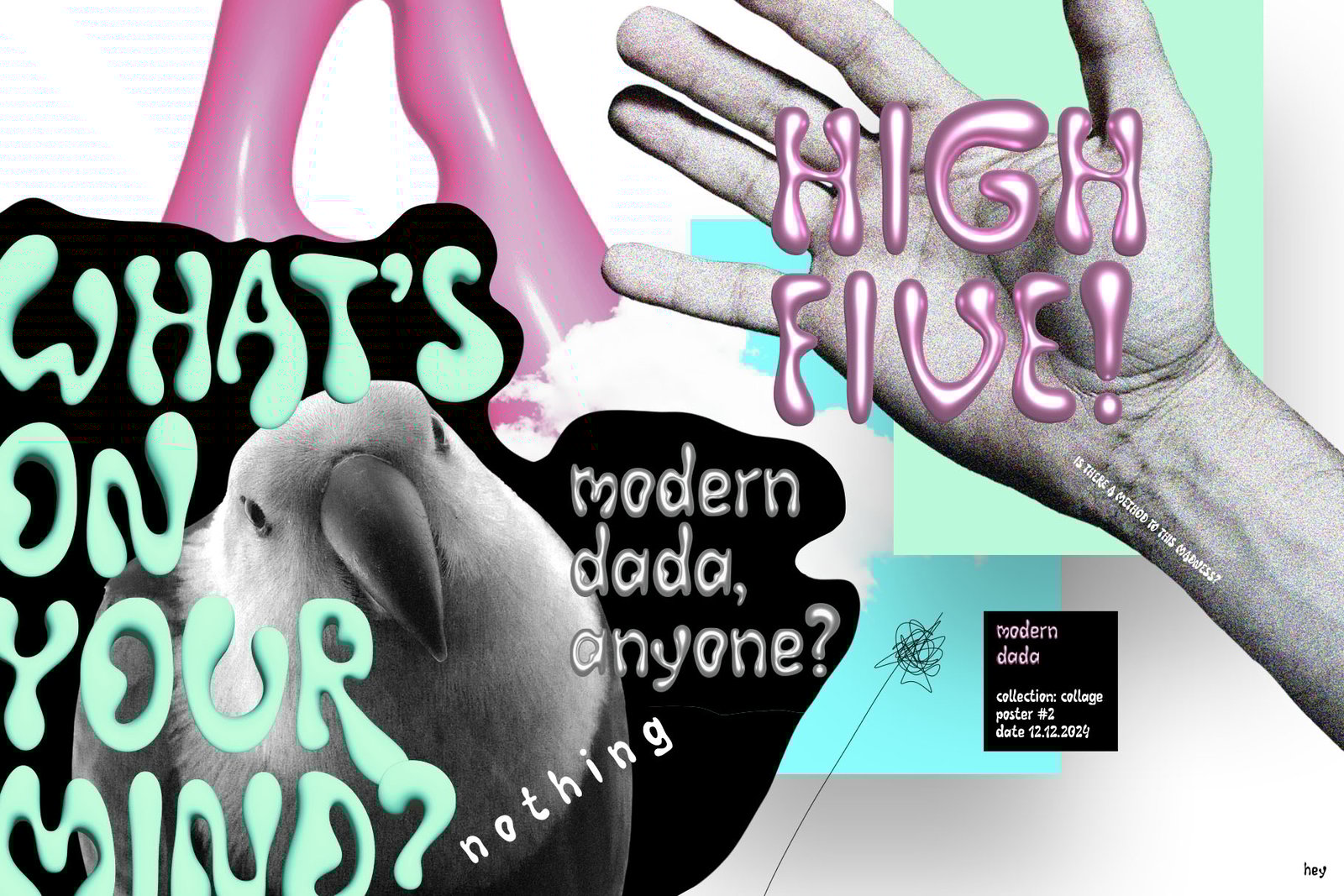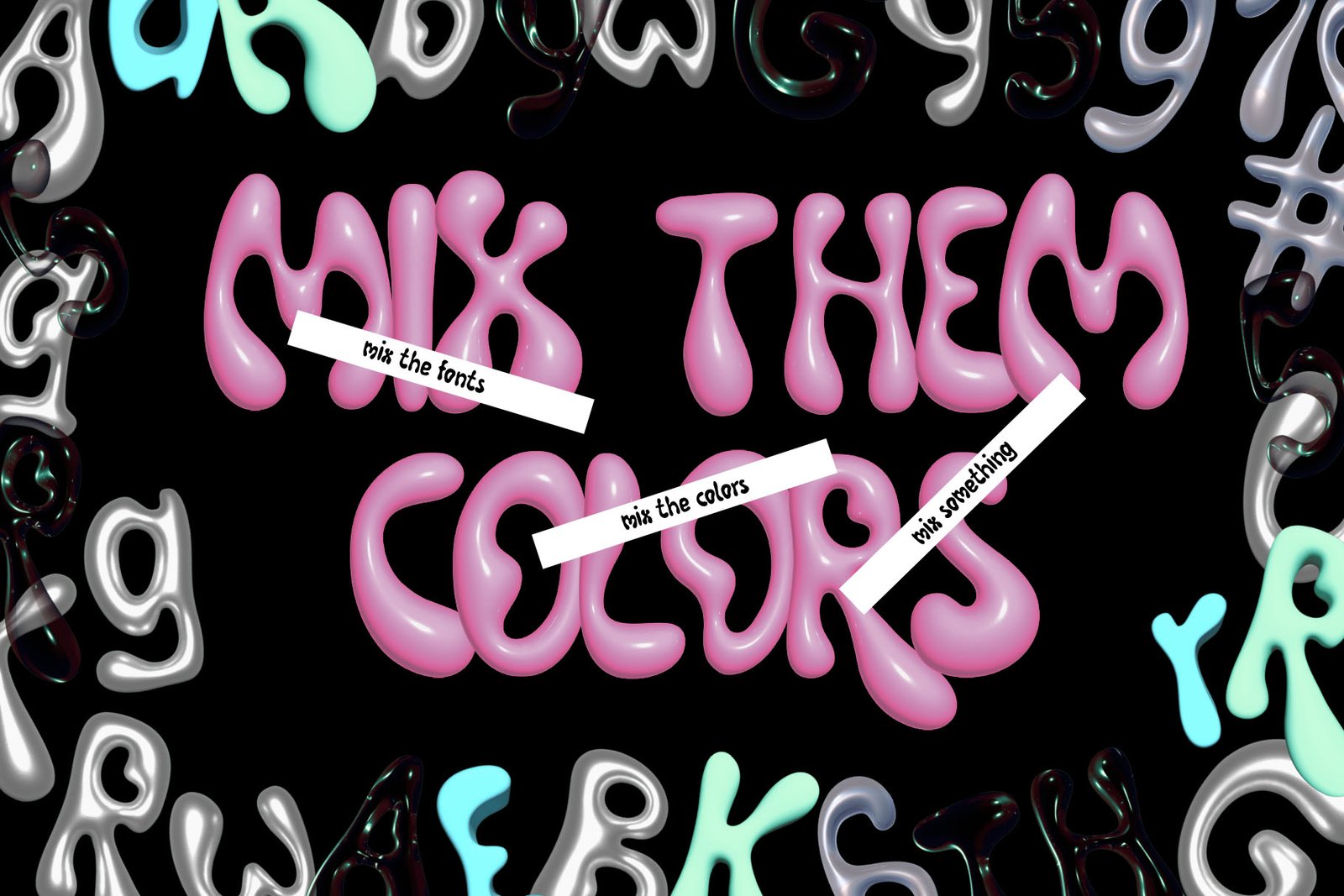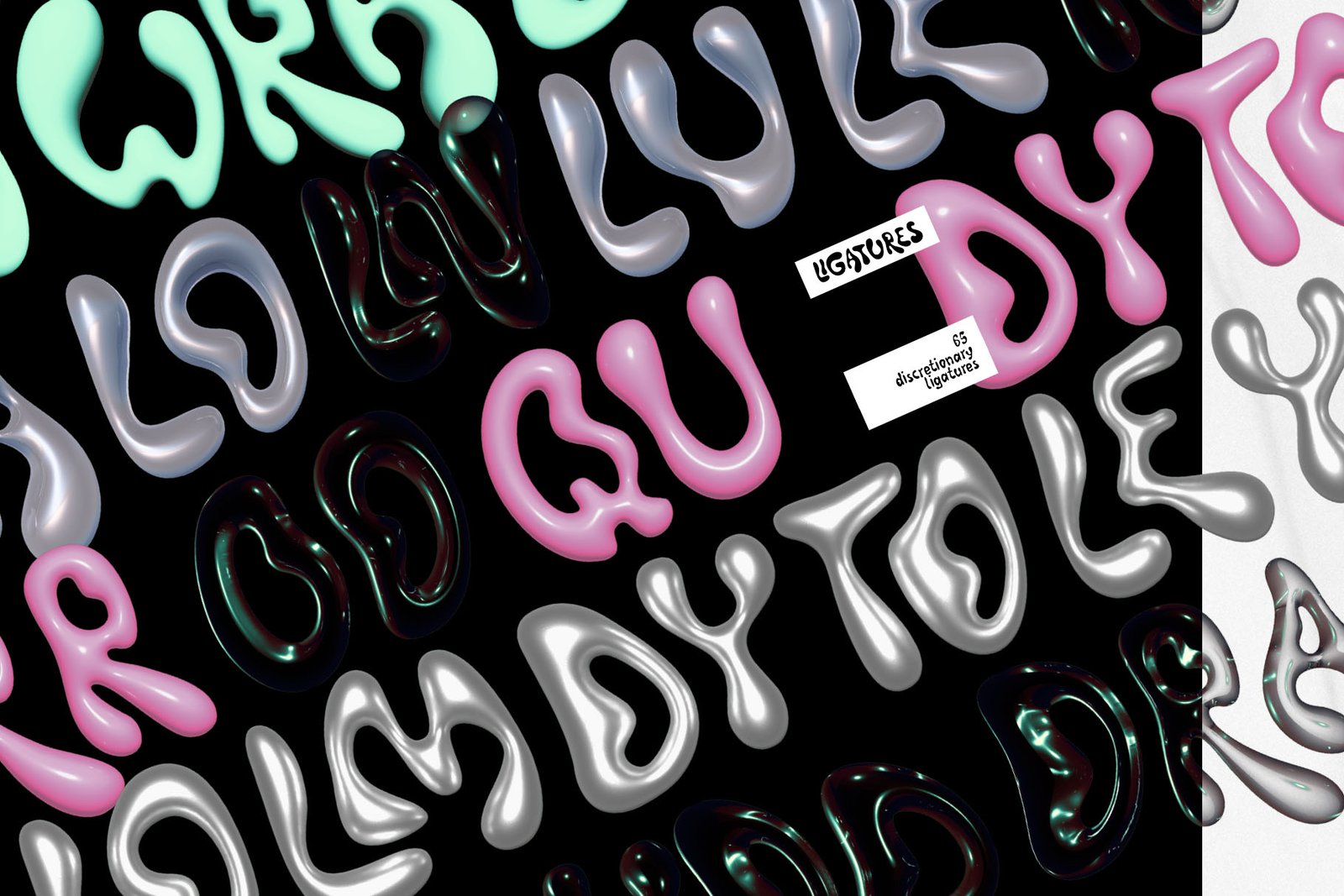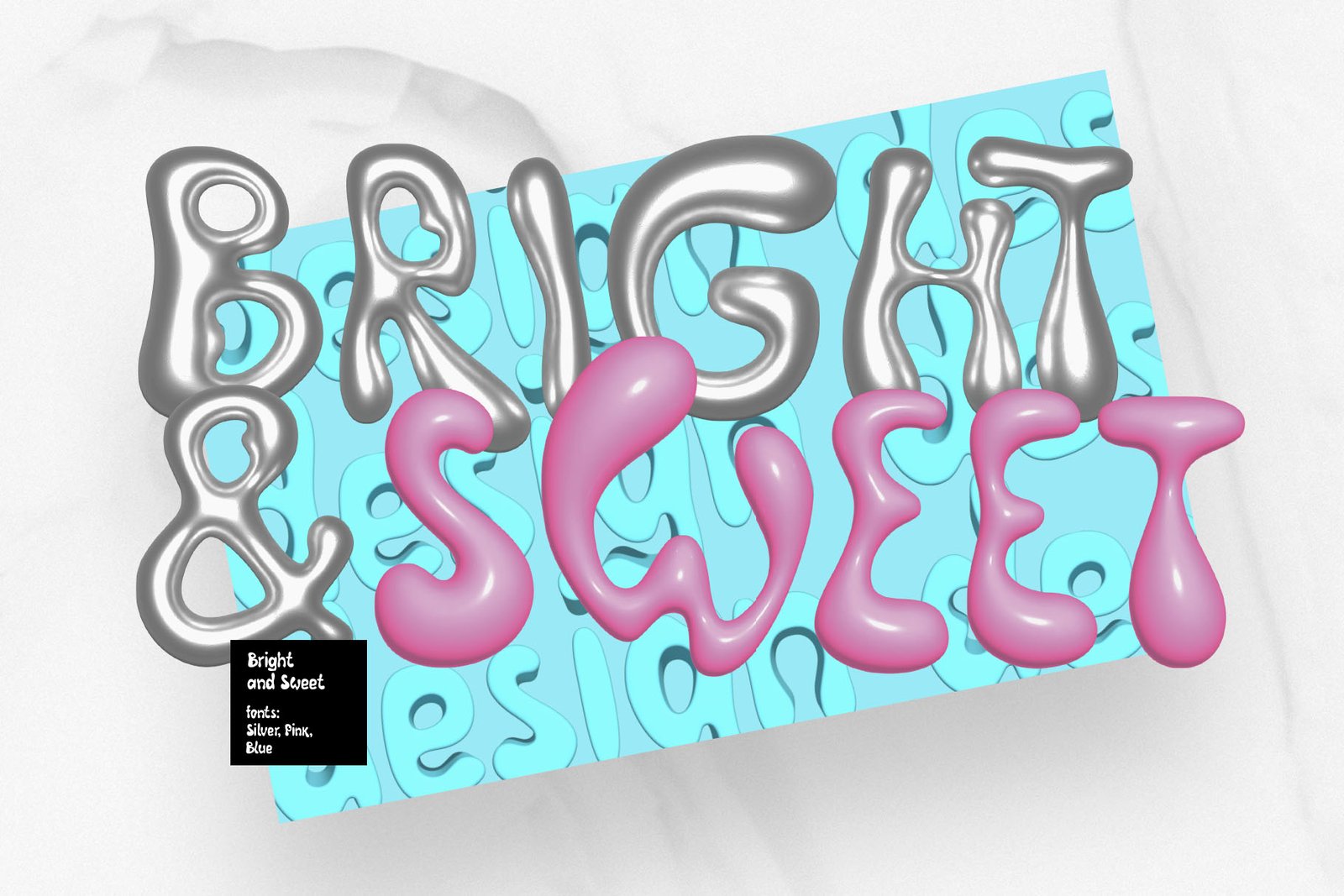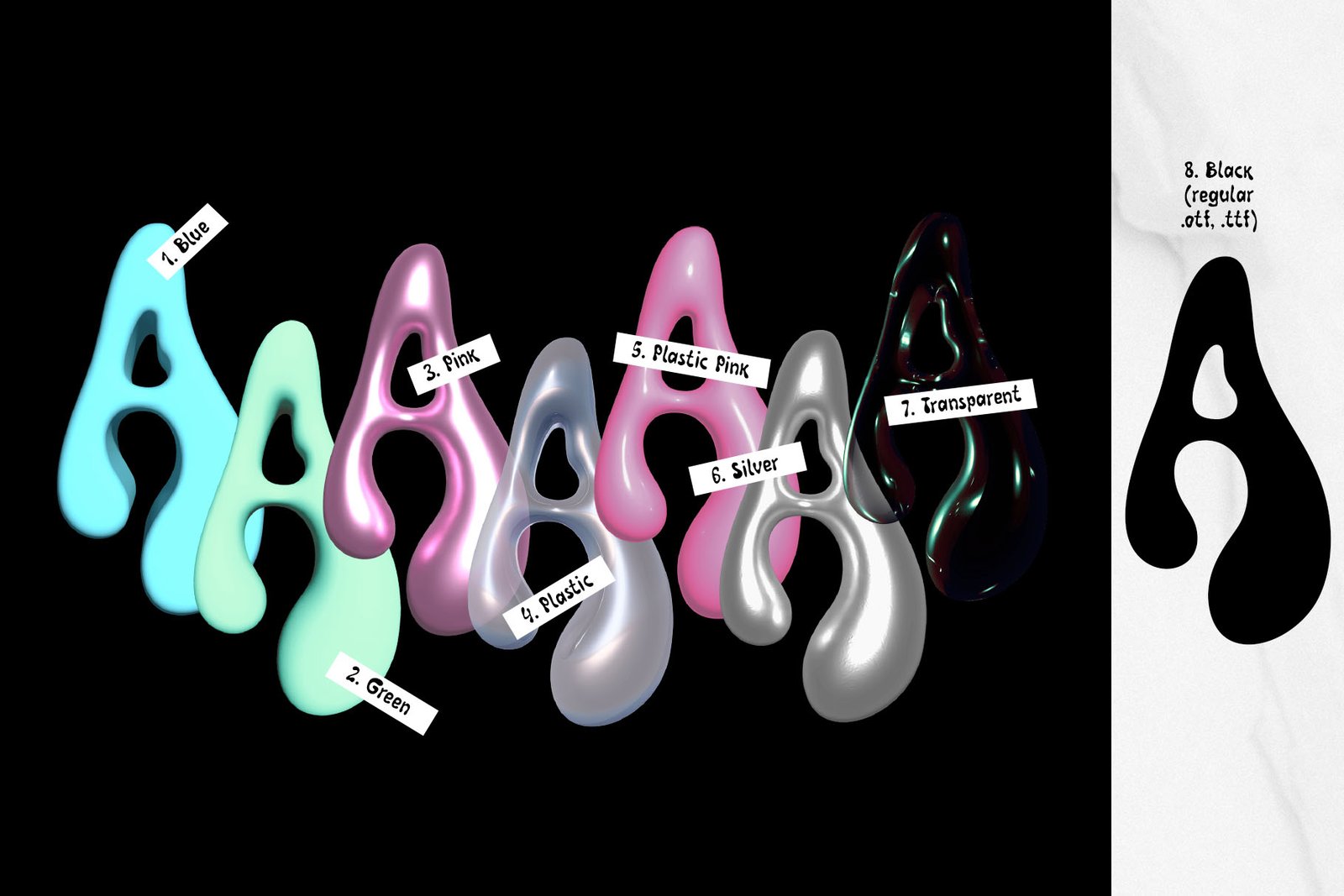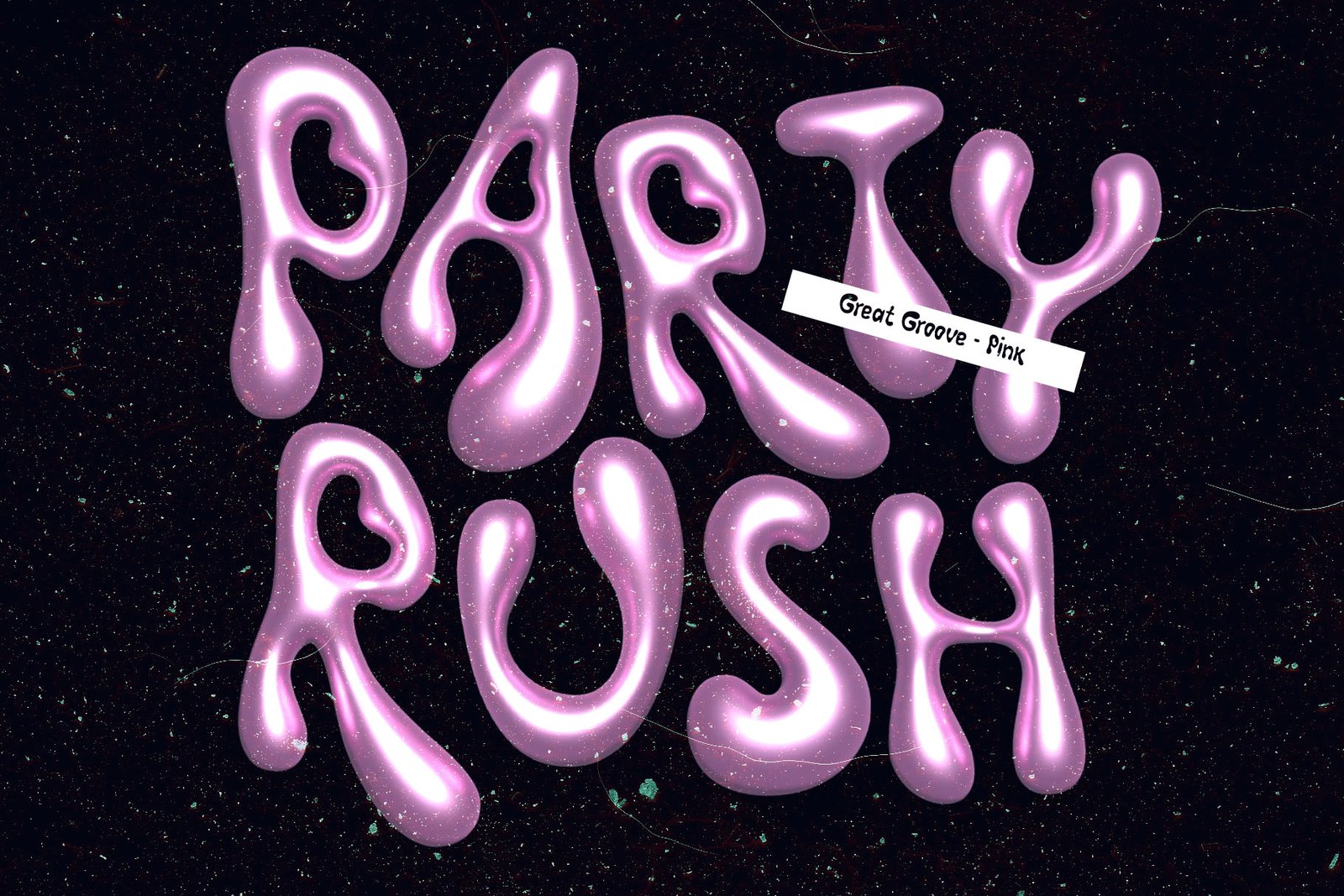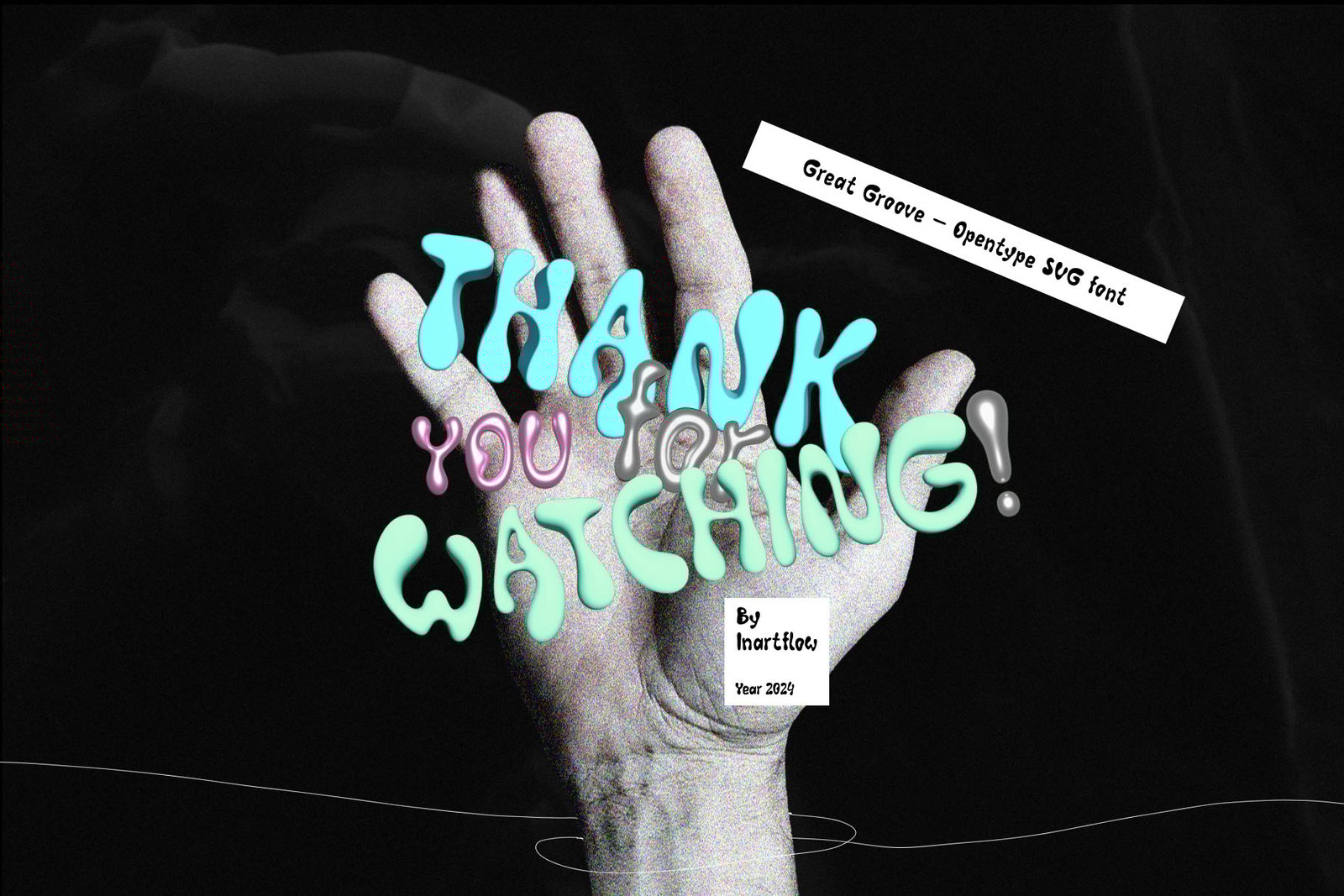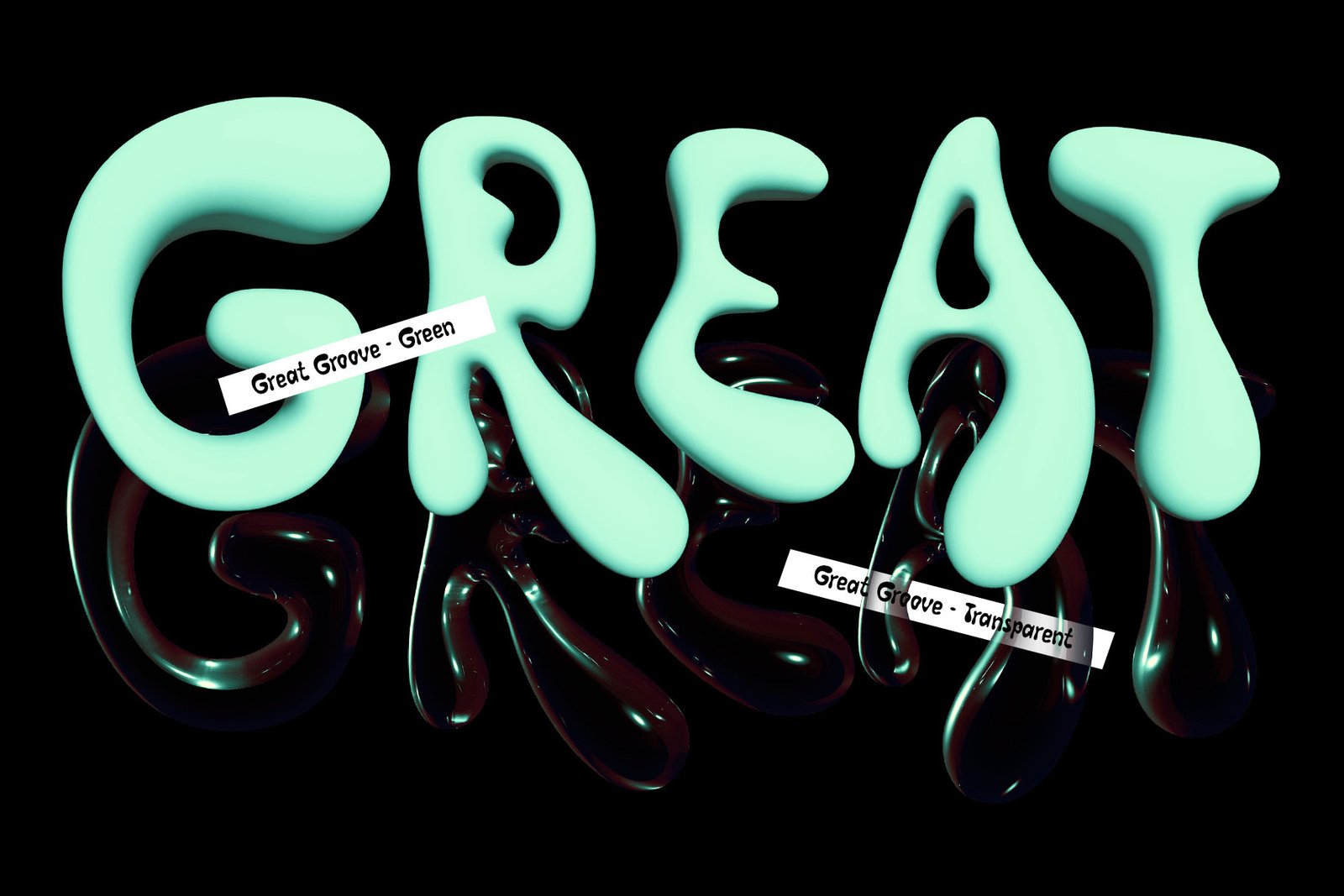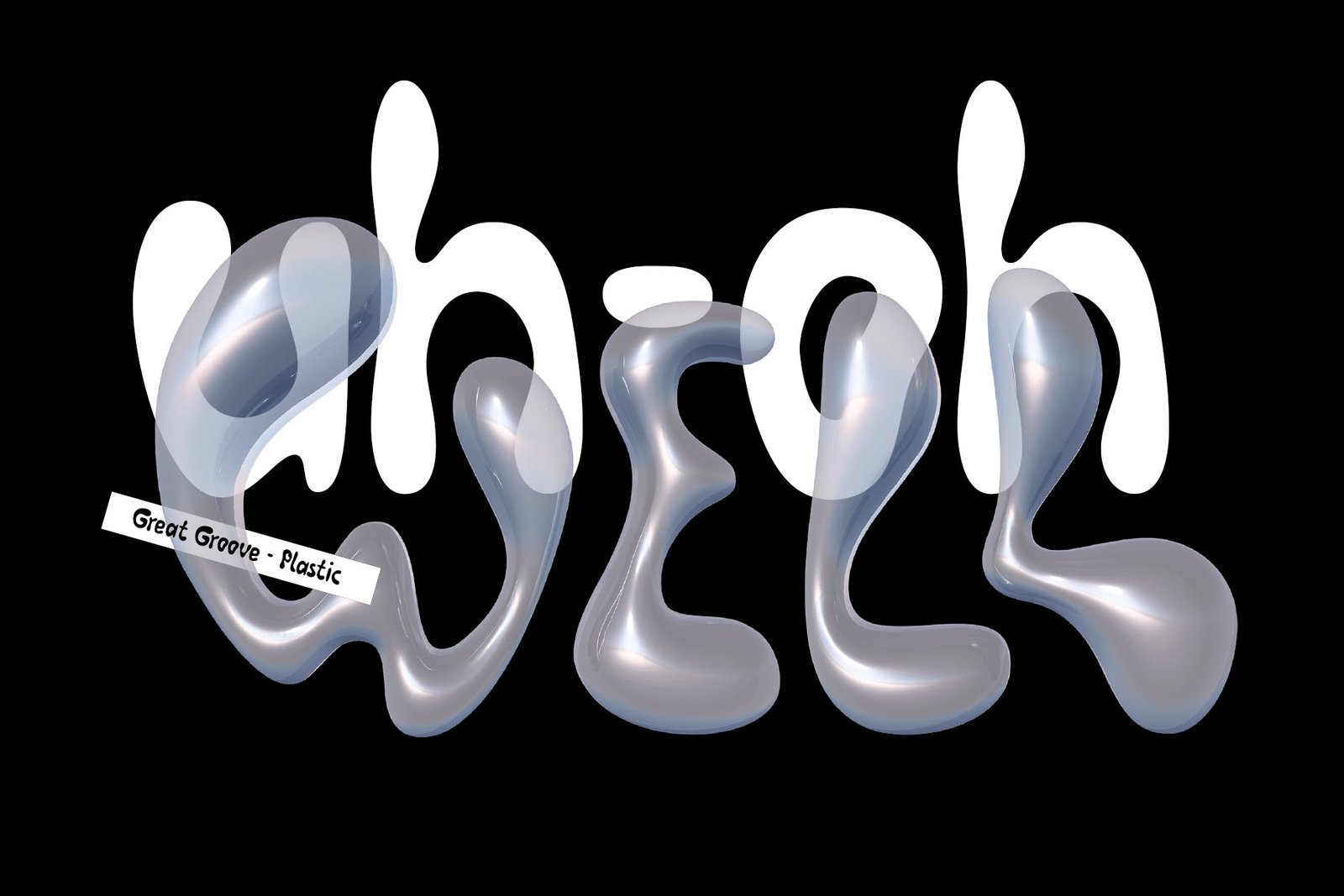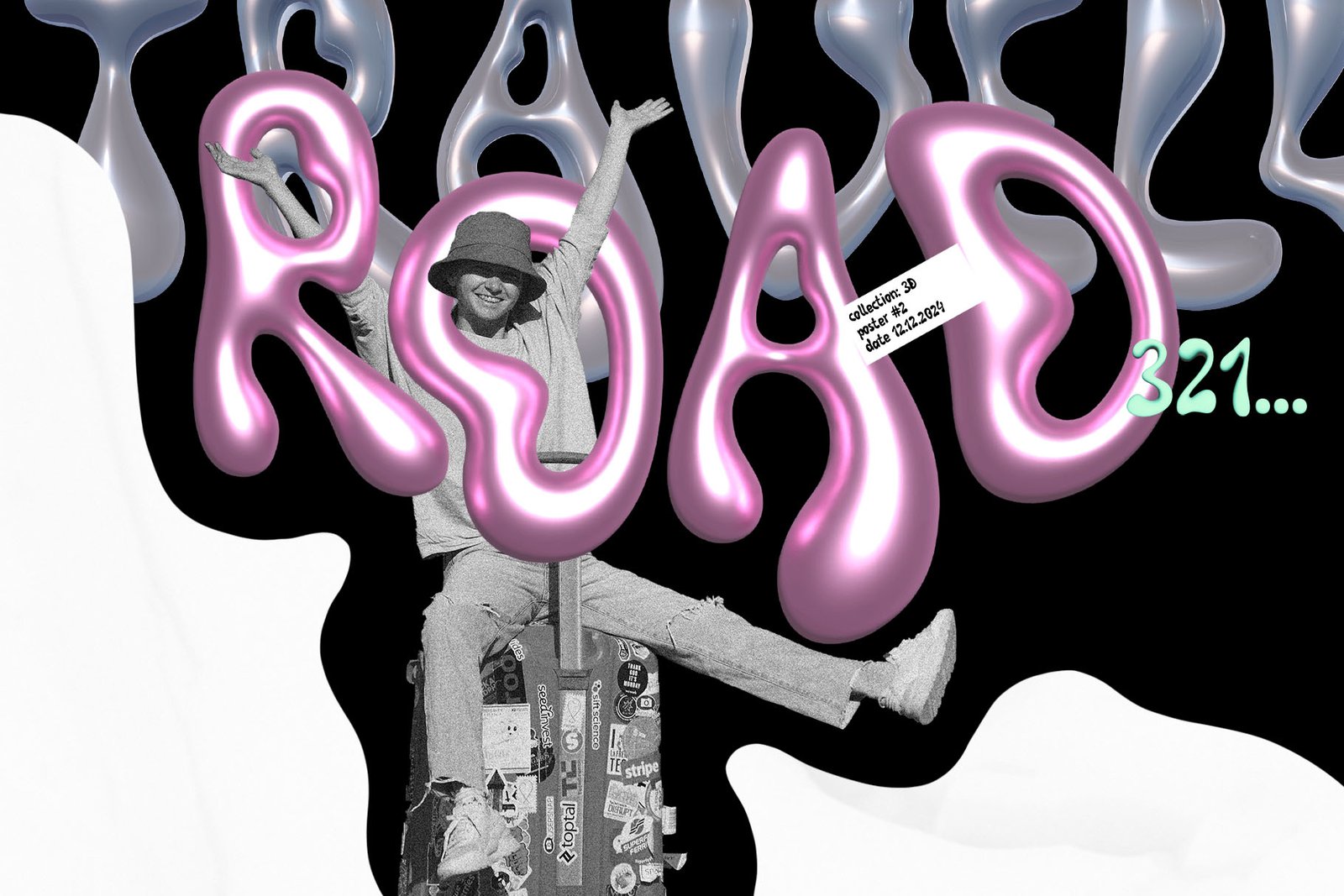
Great Groove, an SVG font
Fun and funky, Great Groove is a bitmap-based SVG font, a perfect solution for adding a playful touch to your design projects.
Each letterset contains 169 characters, including Uppercase, Lowercase, Basic Punctuation, Numbers, Ligatures, Alternatives.